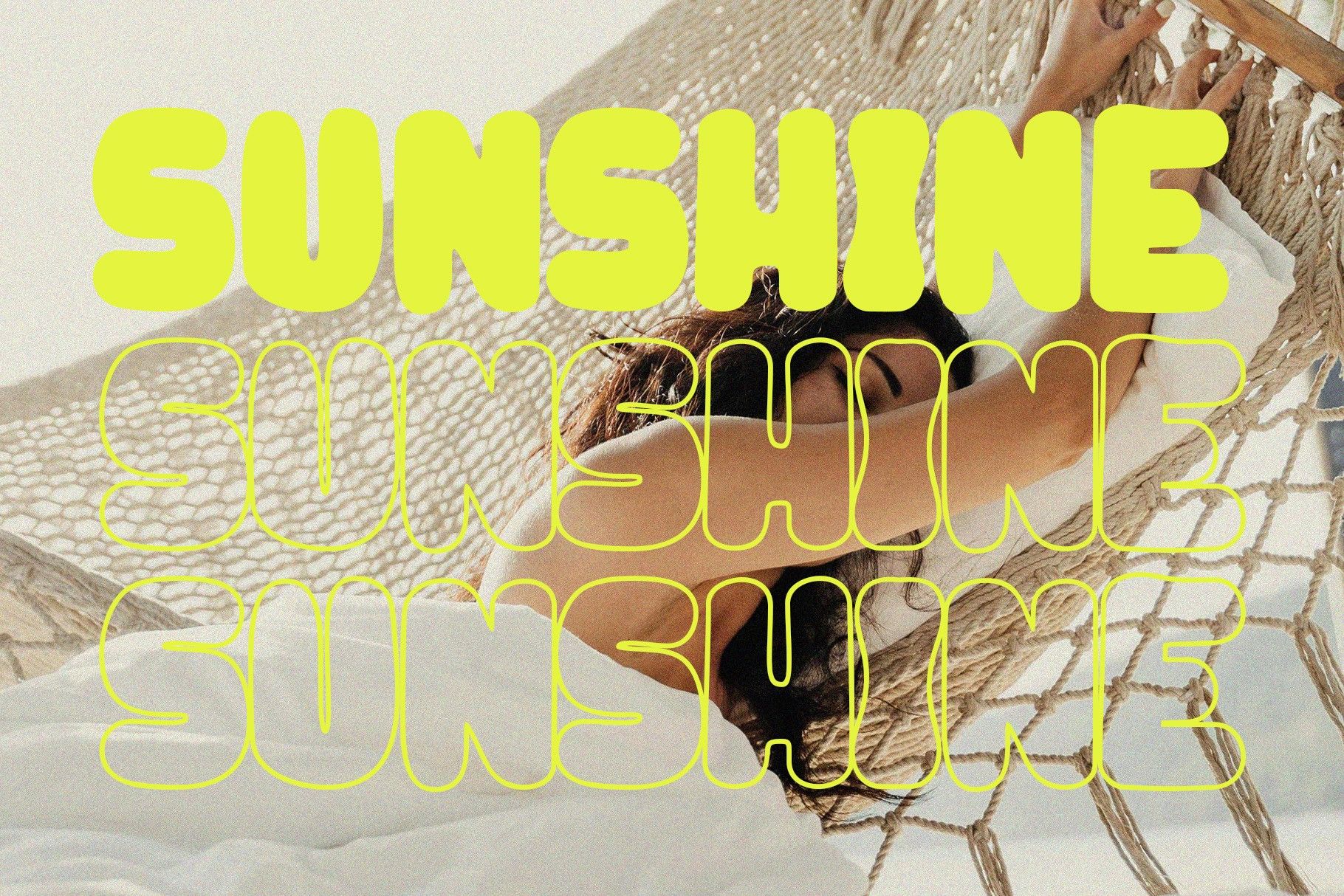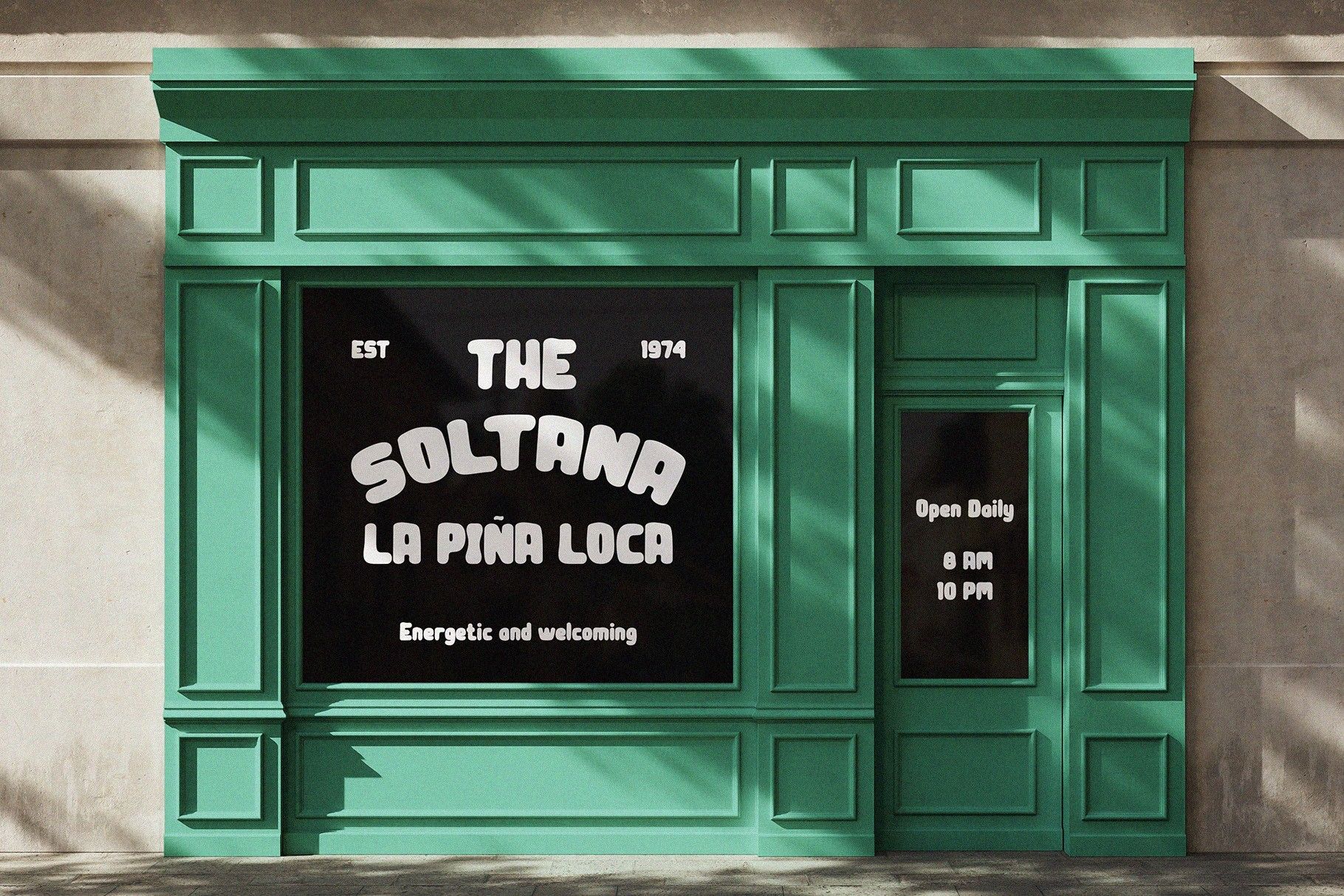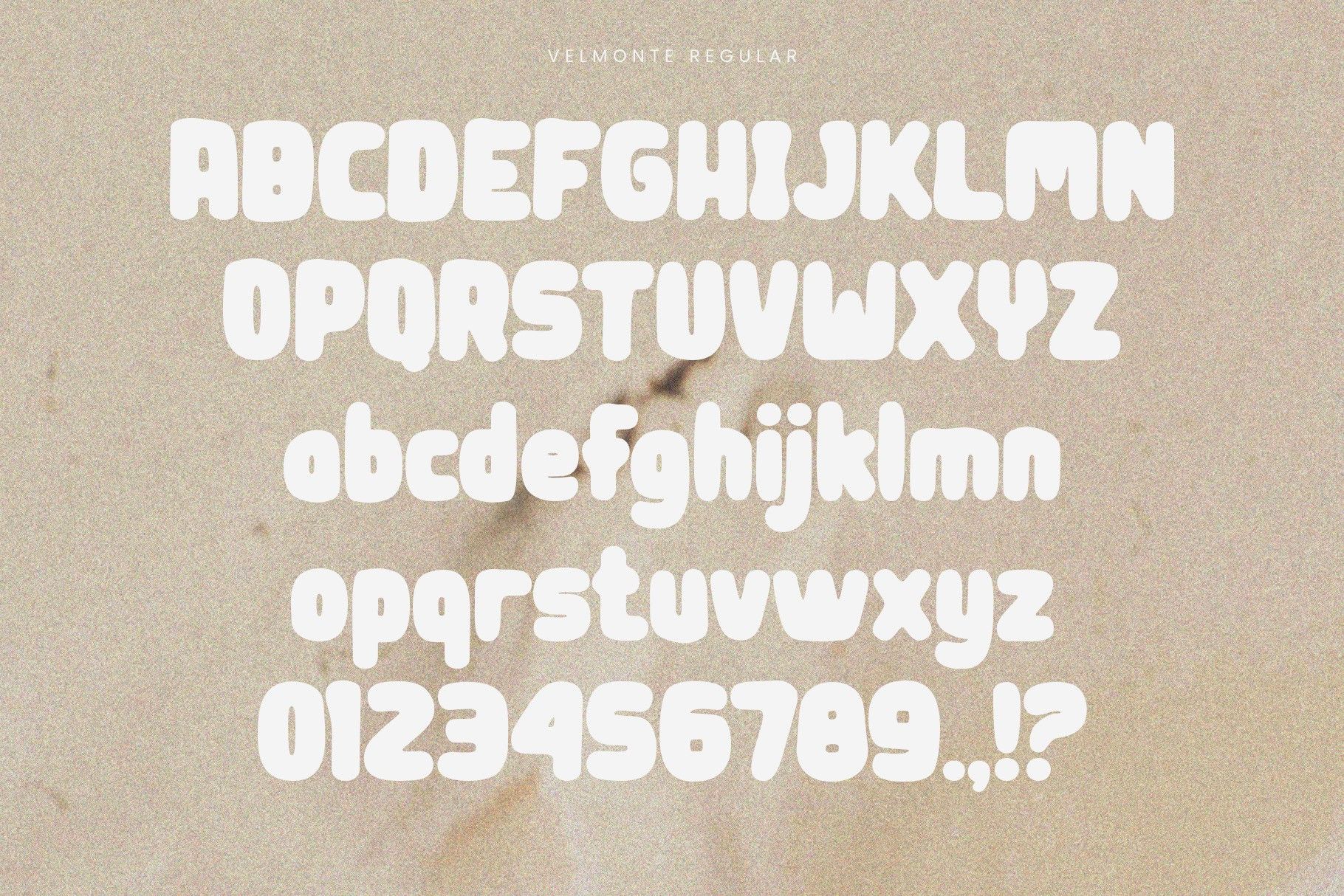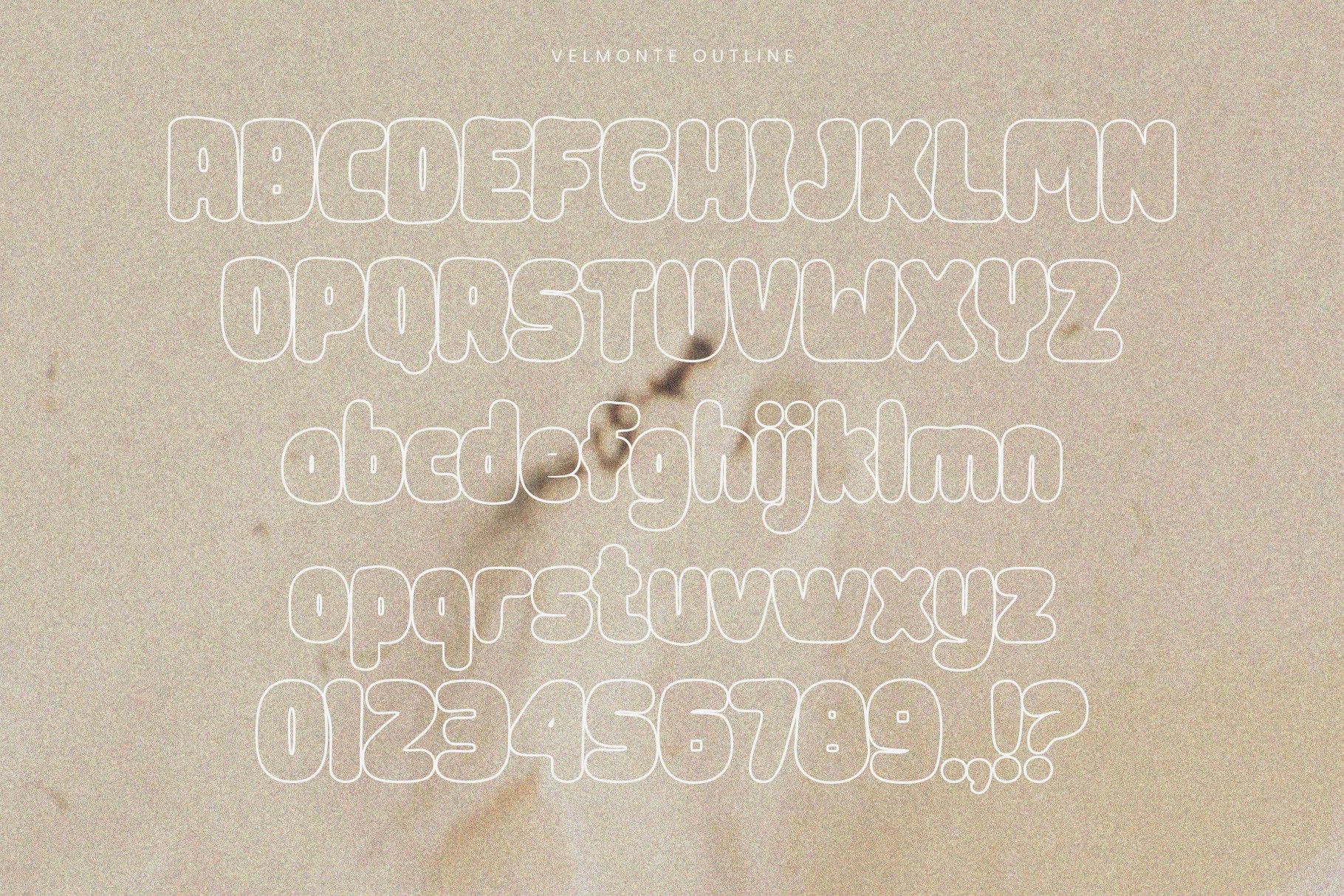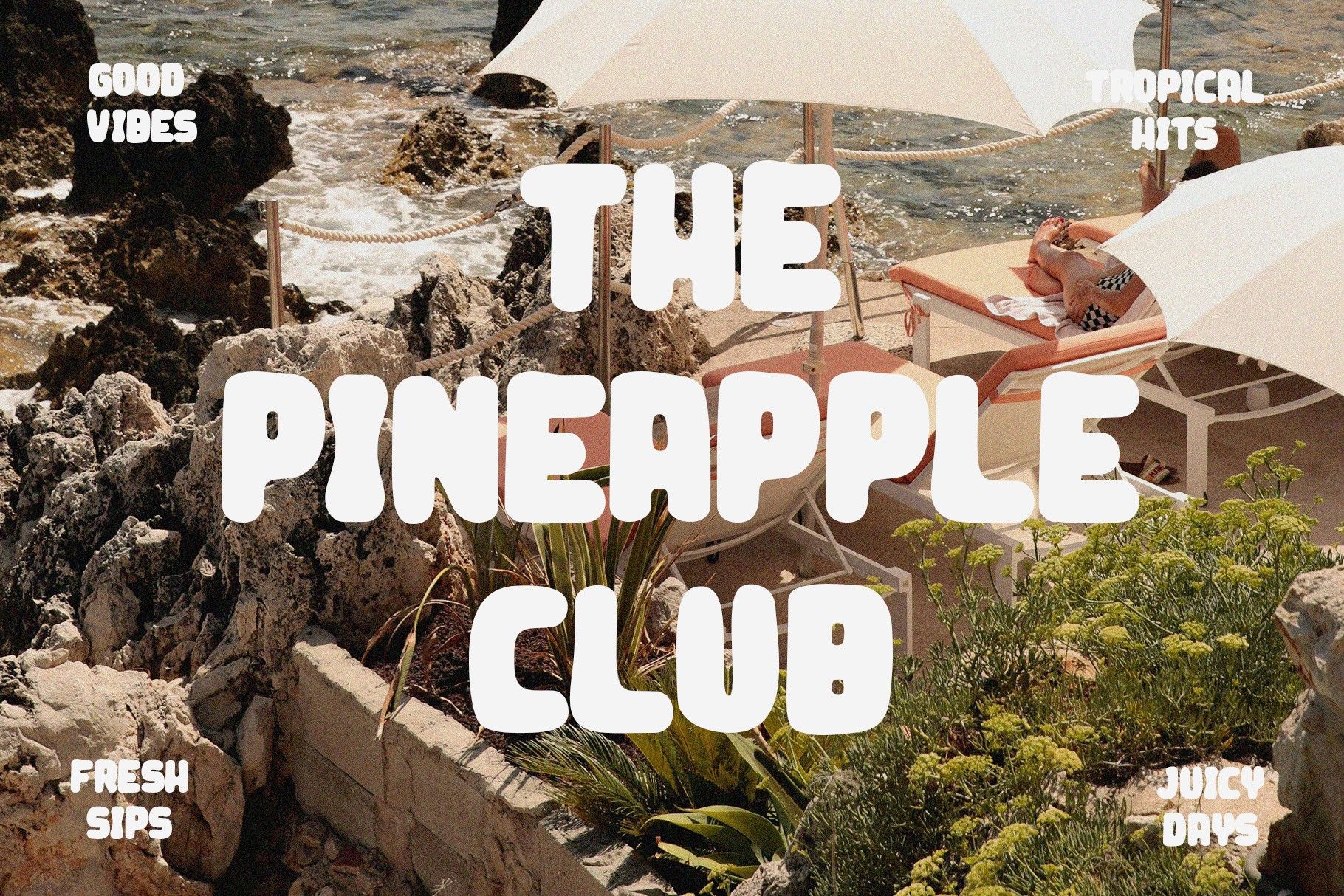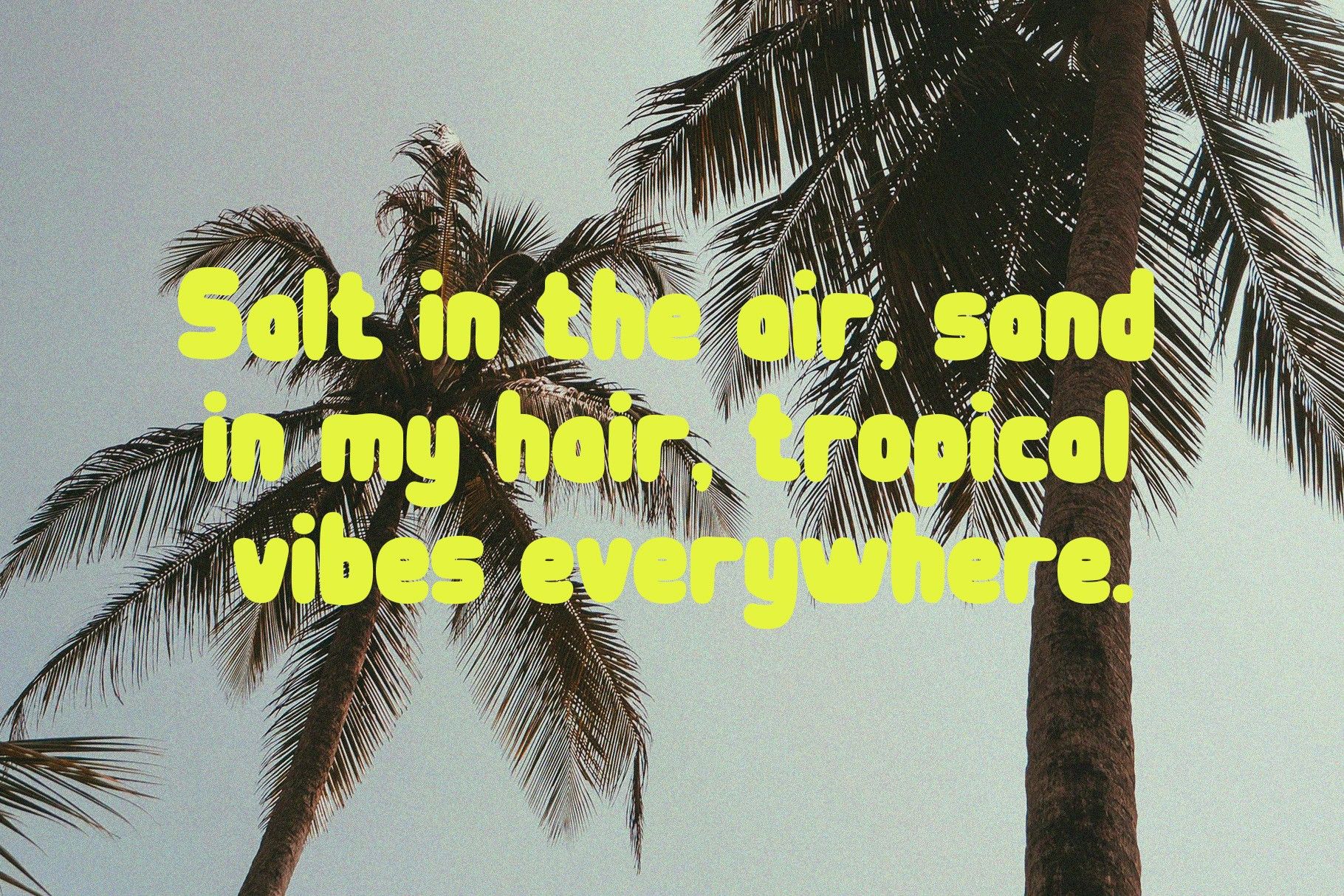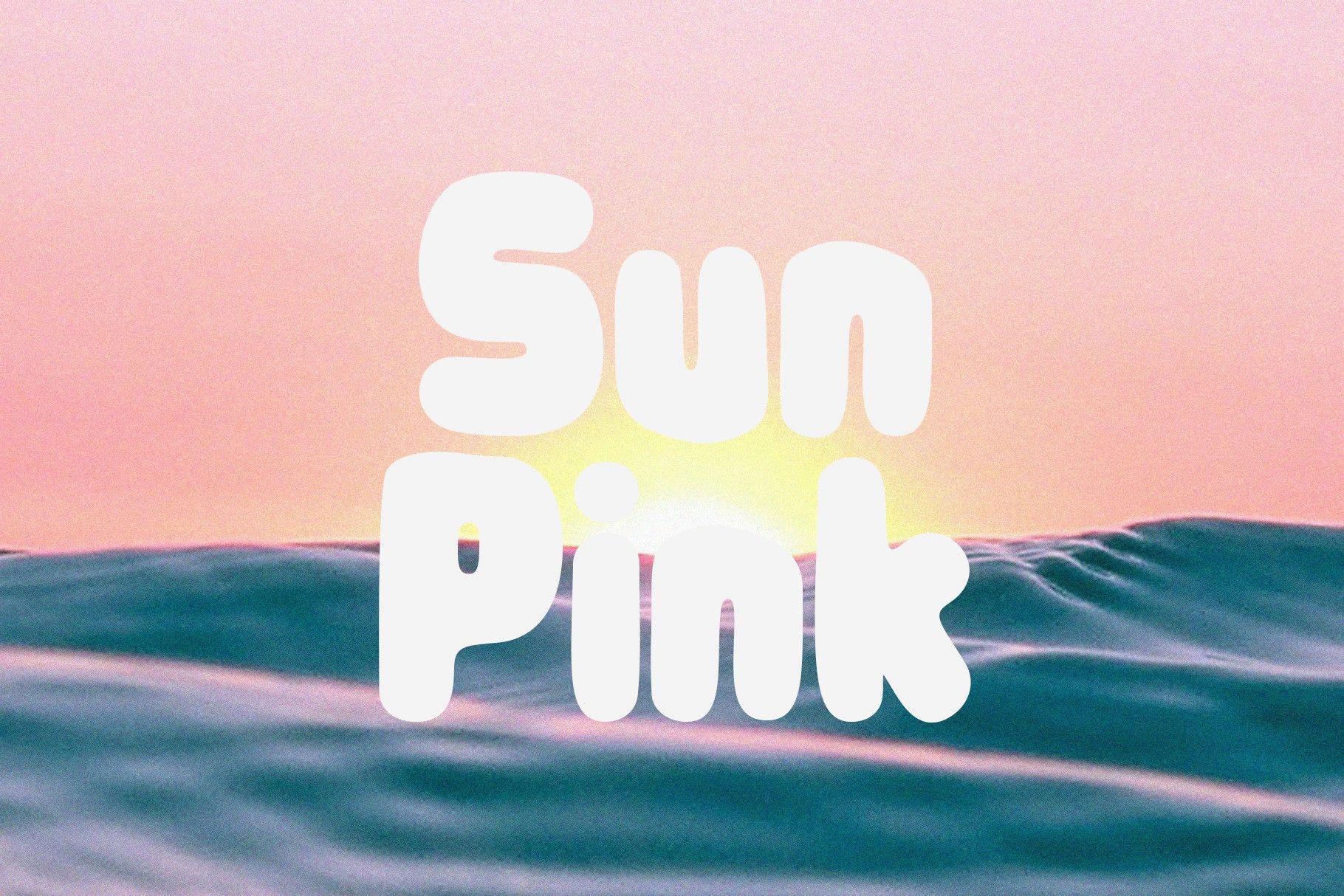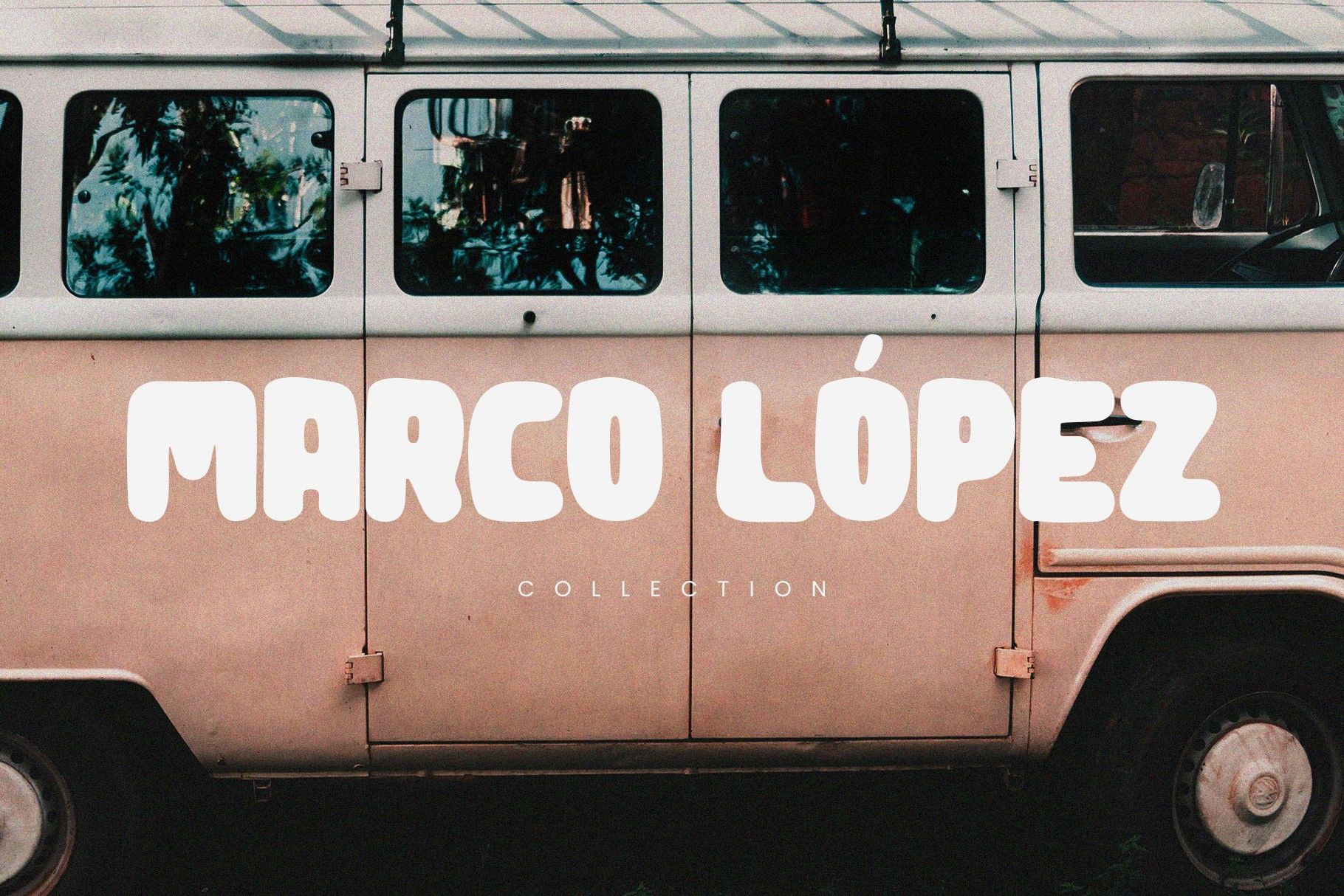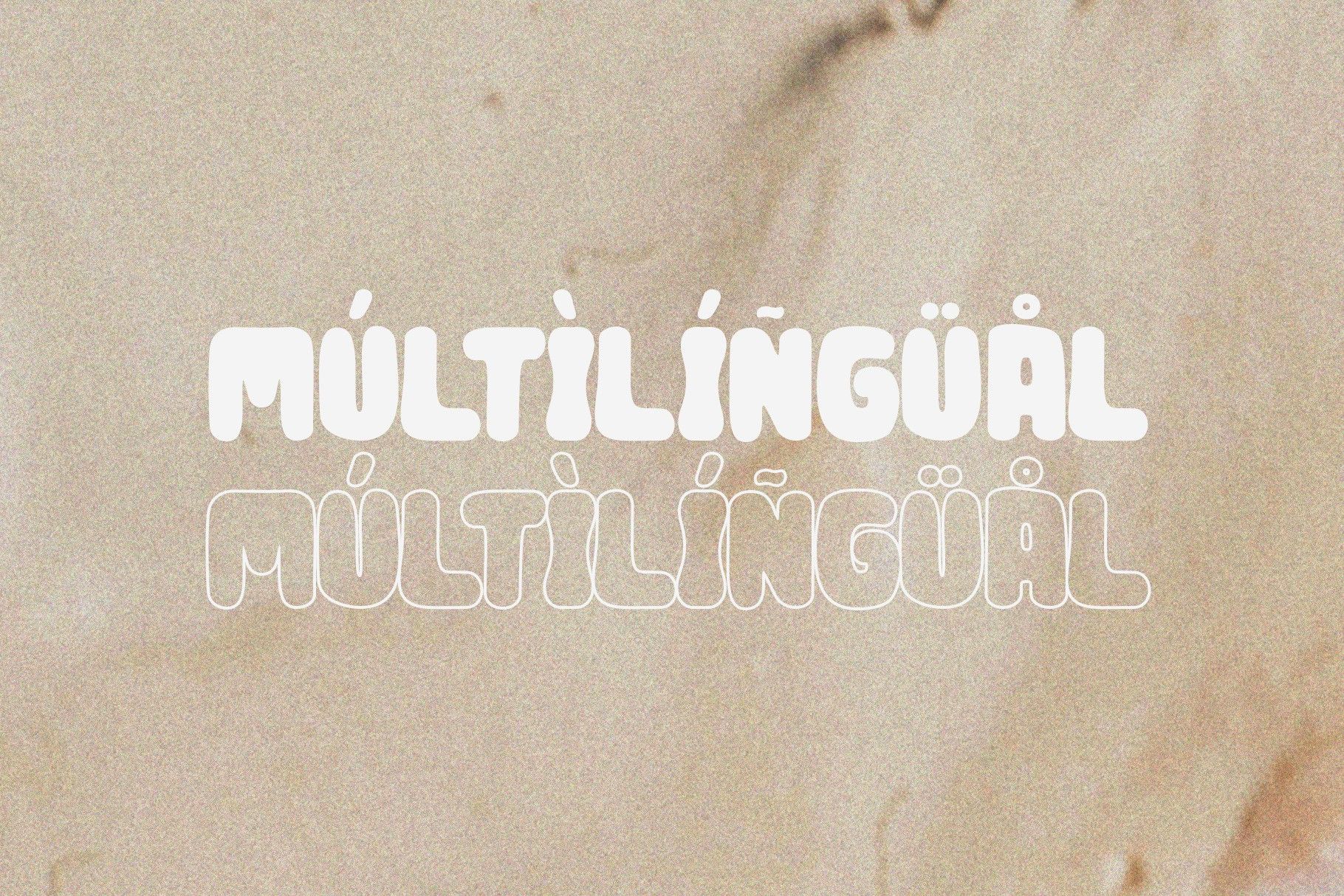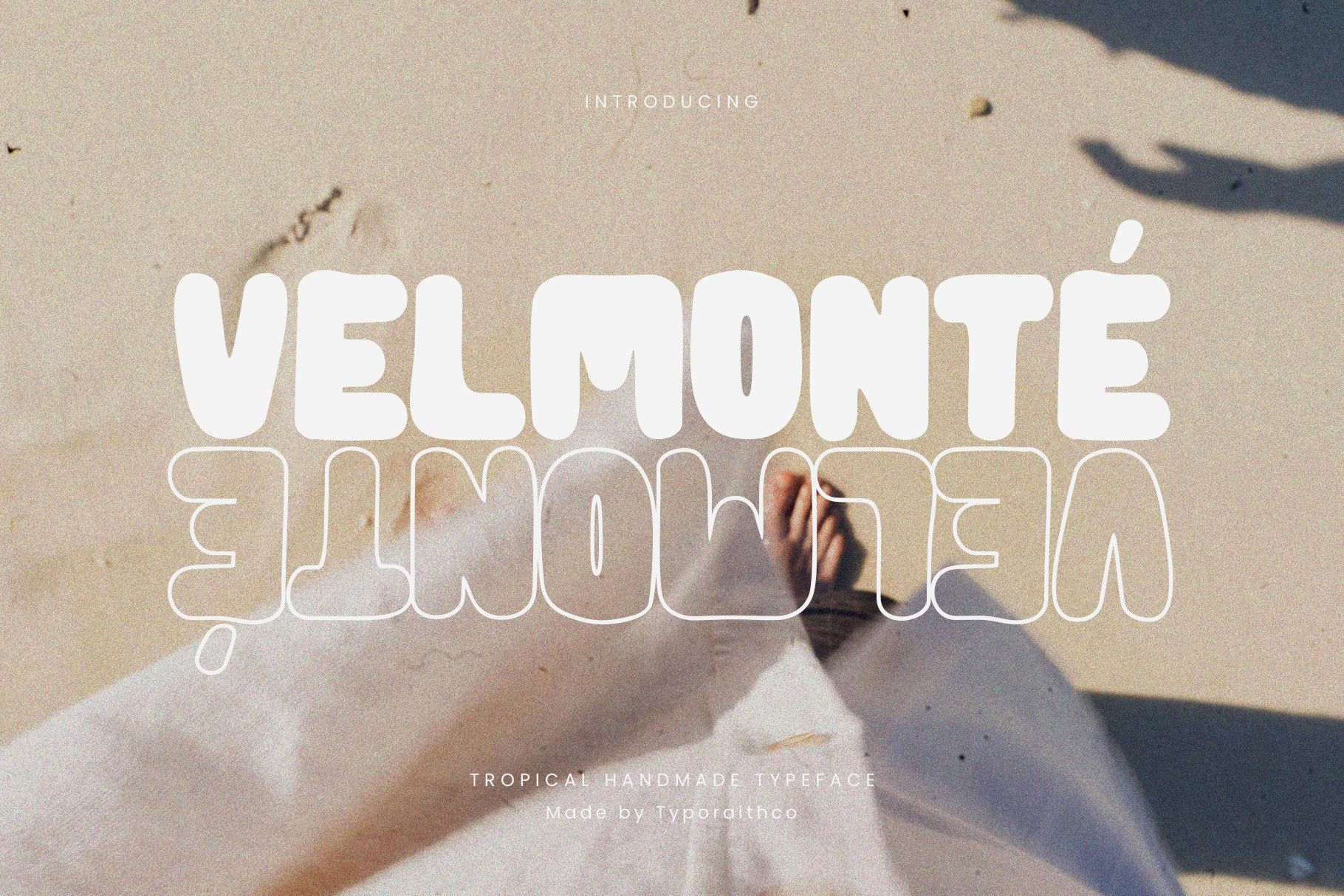
Velmonté is a fun and expressive tropical handmade display typeface, crafted to bring a laid-back beach vibe to your creative projects. With its rounded, soft, and friendly letterforms, Velmonté is perfect for branding, packaging, holiday posters, social media content, and any design that needs a natural, playful touch.
This typeface includes a unique outline version that pairs perfectly with the solid version, allowing for versatile and eye-catching typography combinations.